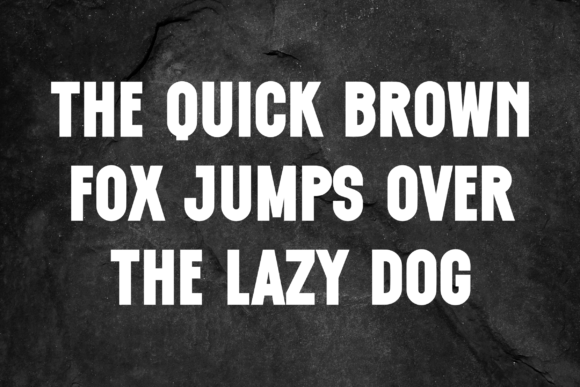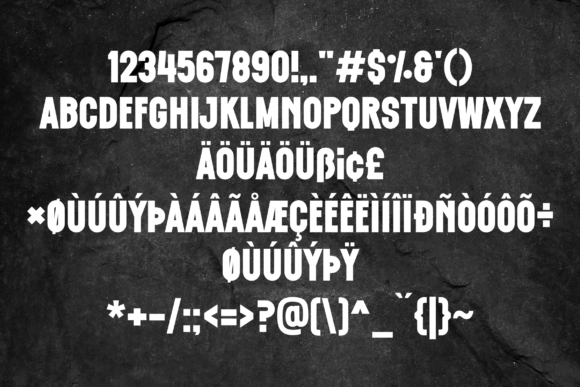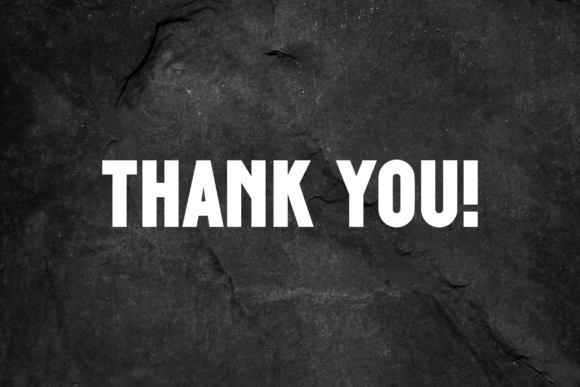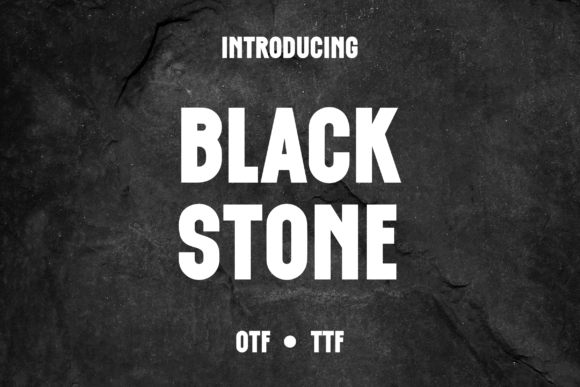
Unleash Bold Sophistication with Black Stone Font
In the realm of typography, a well-chosen font can elevate a design project from ordinary to extraordinary. For those seeking a bold, sophisticated aesthetic, Black Stone Font is an exceptional choice. This meticulously designed sans serif font is poised to infuse a polished elegance and robust charm into your creations, striking the perfect balance between classic simplicity and contemporary flair.
The Essence of Black Stone Font
Black Stone Font is a sans serif typeface, characterized by its clean lines, precise geometry, and an overall sense of streamlined sophistication. The font’s design is rooted in the principles of modern typography, where clarity and legibility are paramount. However, what sets Black Stone apart is its bold, assertive quality, which lends itself beautifully to headlines, titles, and any design element where impact and elegance are desired.
Key Features of Black Stone Font
- Polished Elegance: Black Stone boasts a high level of polish, making it suitable for projects that demand a touch of luxury and refinement. Its elegant appearance can add a sophisticated layer to branding, advertising, and editorial designs.
- Robust Charm: Despite its elegant demeanor, Black Stone Font carries a robust charm that ensures it remains versatile and highly legible across various applications, from digital platforms to print materials.
- Streamlined Appearance: The font’s streamlined design ensures that it works well in a multitude of contexts, providing a cohesive look that can tie together disparate elements of a design project.
- Classic Simplicity Meets Contemporary Flair: Black Stone successfully bridges the gap between timeless simplicity and modern aesthetics. Its classic roots ensure it won’t go out of style, while its contemporary edge keeps it relevant and fresh.
Applications of Black Stone Font
The versatility of Black Stone Font makes it an excellent choice for a wide range of design projects. Here are a few applications where Black Stone can truly shine:
- Branding and Logotypes: The font’s bold and elegant nature makes it ideal for creating memorable brand identities and logotypes that demand attention and convey sophistication.
- Advertising and Marketing Materials: For advertisements, posters, and marketing materials, Black Stone can serve as a powerful tool to grab attention and communicate a message with clarity and style.
- Editorial and Digital Content: In editorial design, such as magazines, newspapers, and digital publications, Black Stone can be used to create engaging headlines and titles. Its legibility on digital screens also makes it suitable for website headers, social media posts, and digital newsletters.
- Packaging and Product Design: The font’s robust yet elegant appearance can also enhance product packaging, adding a level of sophistication that stands out on store shelves.
Tips for Using Black Stone Font Effectively
To maximize the impact of Black Stone Font in your designs, consider the following tips:
- Contrast is Key: Use Black Stone in combination with lighter or more delicate fonts to create visual contrast and hierarchy in your designs.
- Consider the Context: While Black Stone is versatile, it’s essential to consider the project’s context and audience. Ensure the font aligns with the brand’s voice and the project’s overall aesthetic.
- Experiment with Sizes: Don’t be afraid to experiment with different sizes and weights of Black Stone to create visual interest and emphasize certain design elements.
| Author | RADesigns21 |
Black Stone Font offers designers and crafters a unique opportunity to infuse their projects with a bold, sophisticated aesthetic. Its blend of polished elegance, robust charm, and streamlined appearance makes it an invaluable tool in the world of design. Whether you’re working on branding, advertising, editorial content, or product packaging, Black Stone is poised to elevate your designs, striking the perfect balance between classic simplicity and contemporary flair.